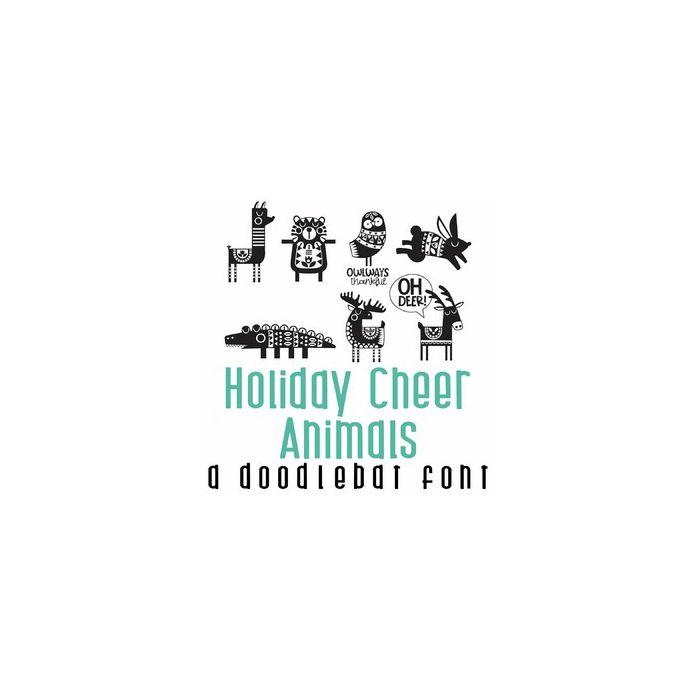
This fun doodlebat has 26 fun design filled animals perfect for the Thanksgiving or Christmas. Use this doodlebat for cards, crafts, gifts, decor, scrap book pages, planner stickers and more!